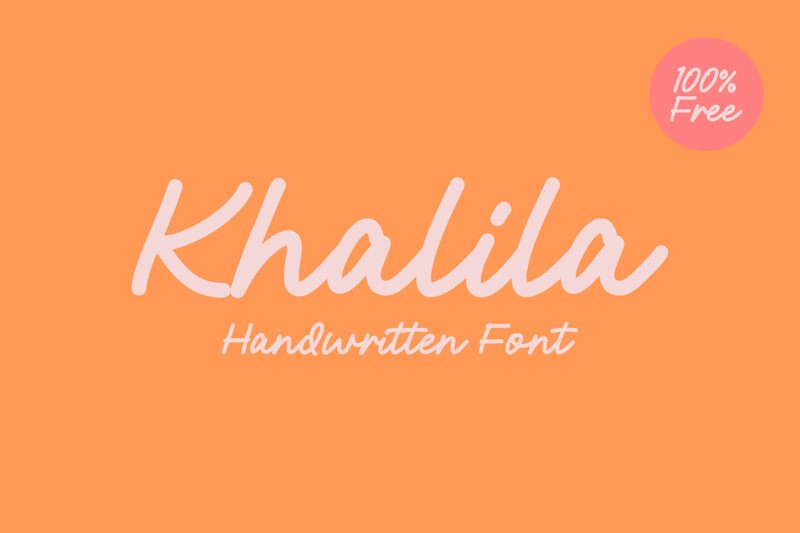
Khalila is a charming and expressive handwritten font designed by Muhammad Zulfani, that brings a touch of personality to any project. Its natural flow and playful strokes create a unique style suitable for various designs. Khalila is perfect for wedding invitations, greeting cards, social media posts, branding projects or anything that requires a personal touch. The font's warm and friendly appearance makes it ideal for creating engaging content that captures attention in an instant. With its versatile design, Khalila is the perfect addition to your font collection and will help you stand out from the crowd with ease.
Khalila
Muhammad Zulfani